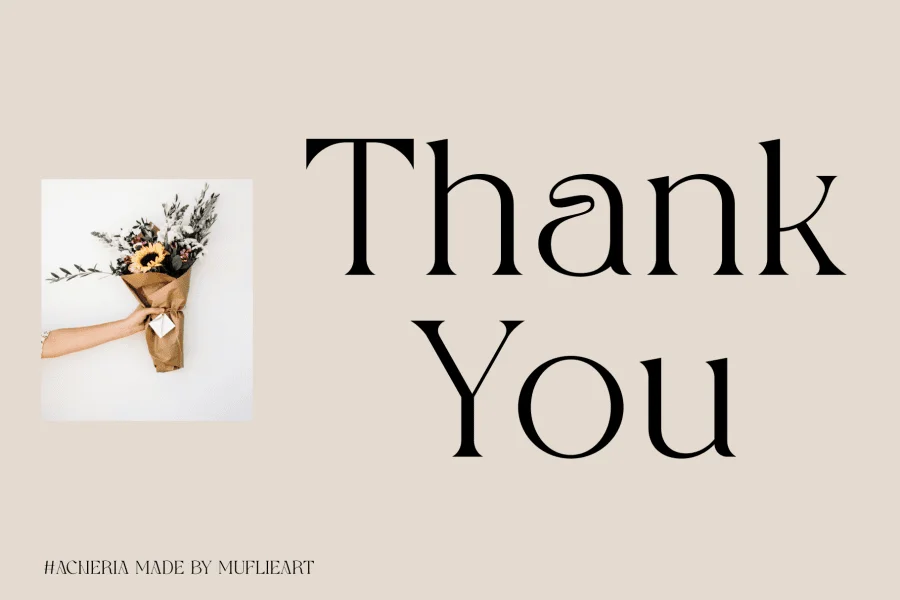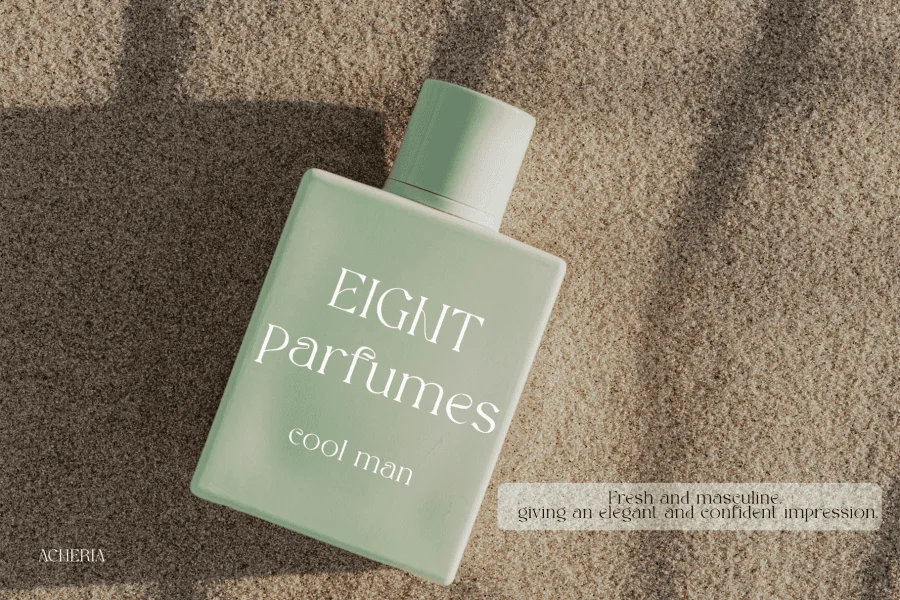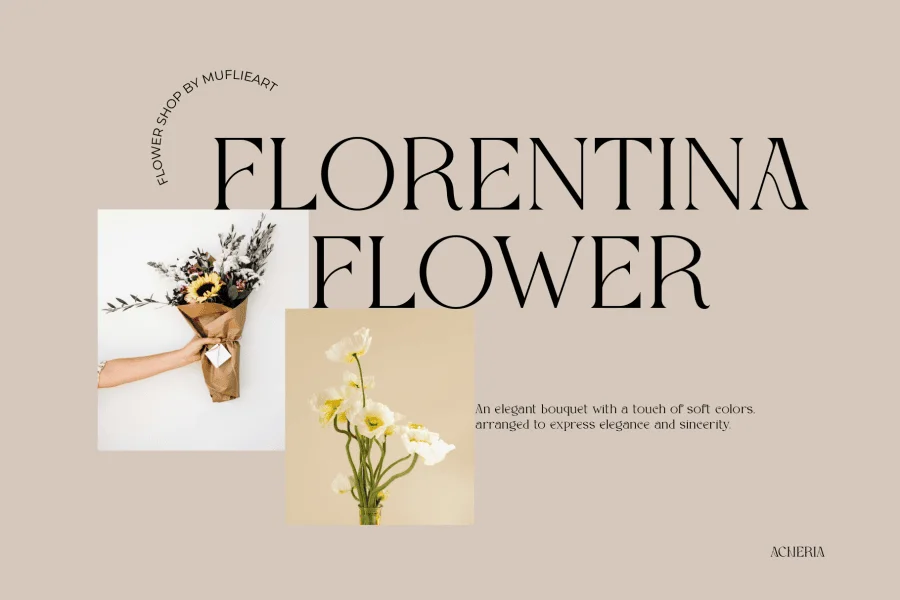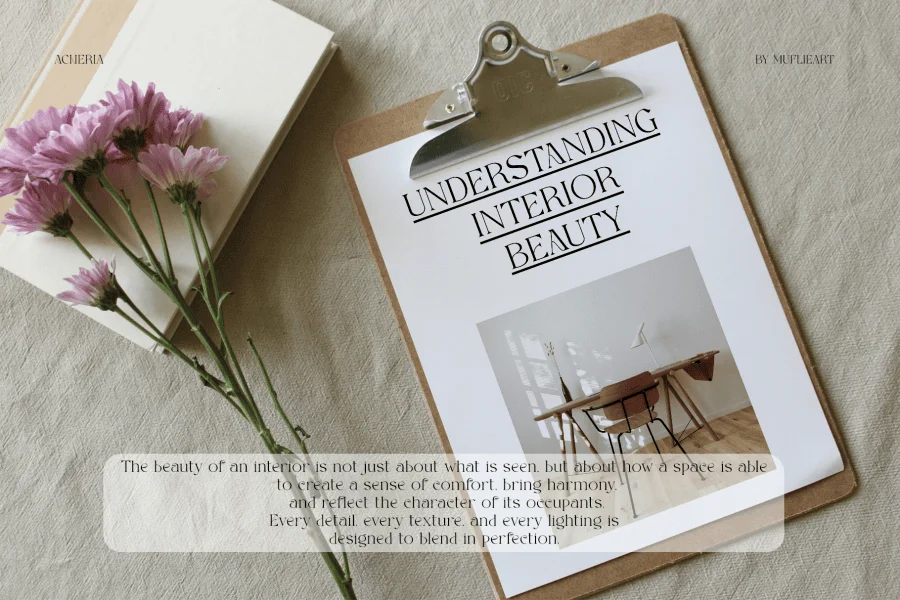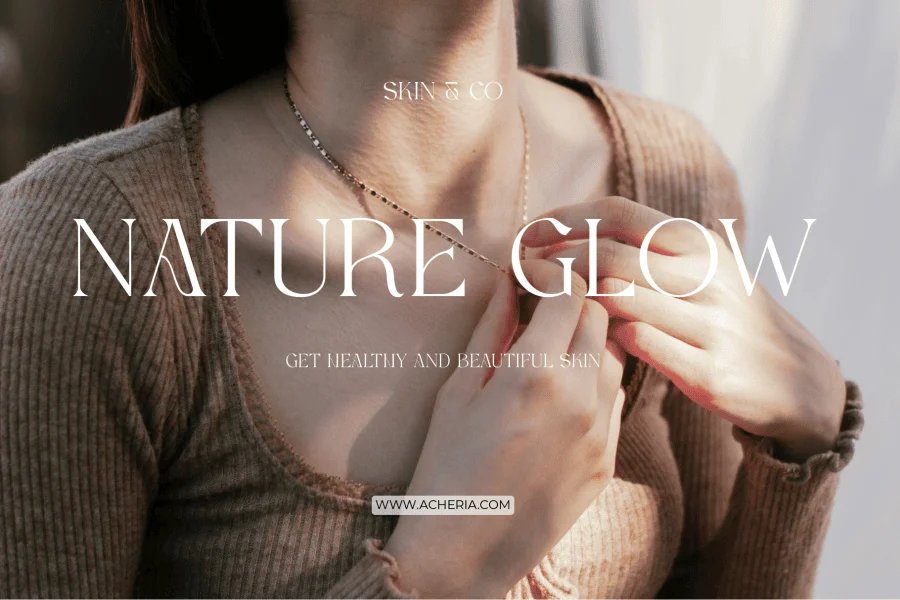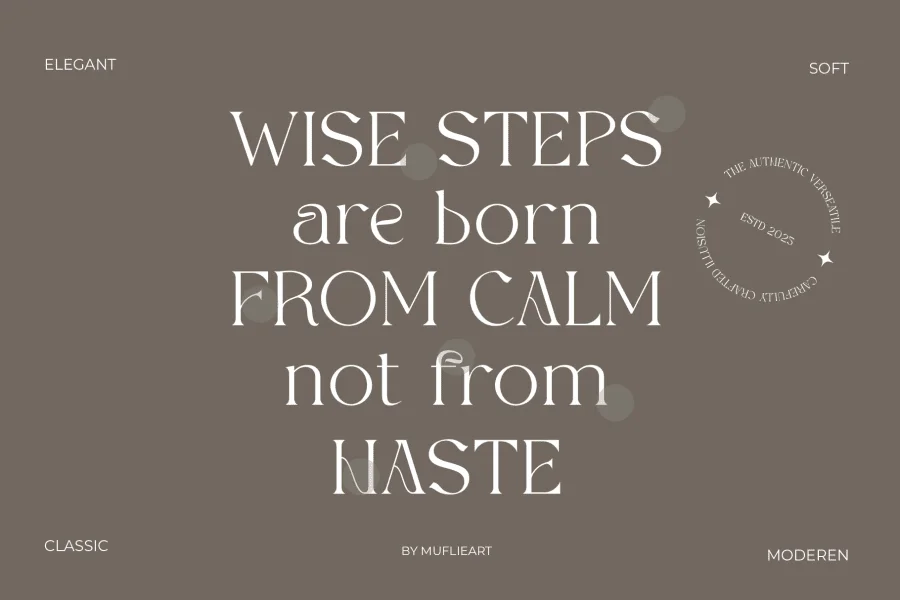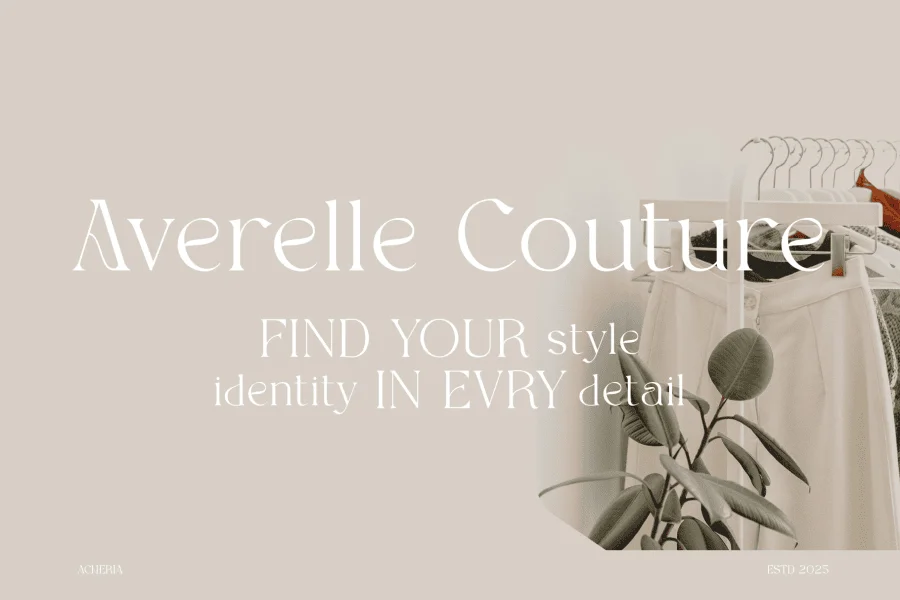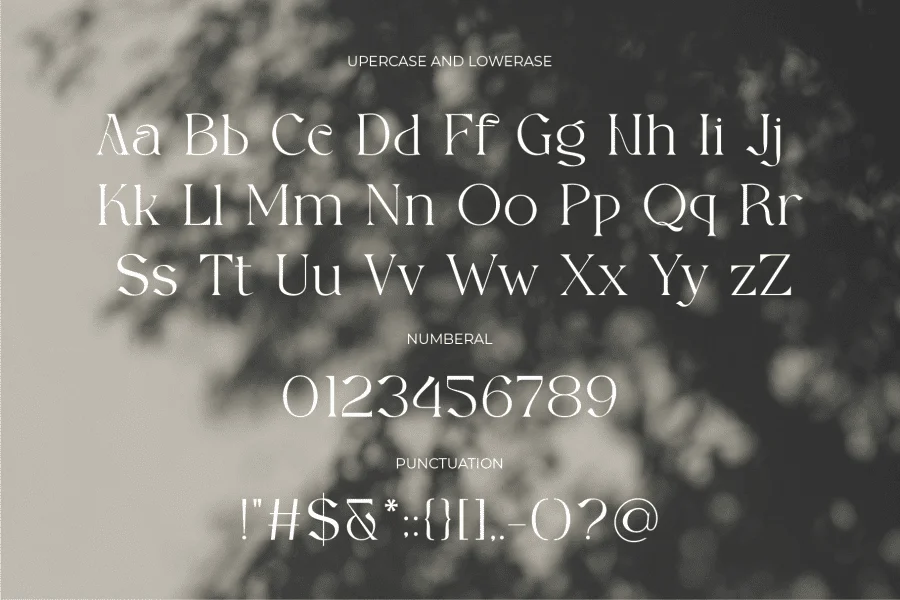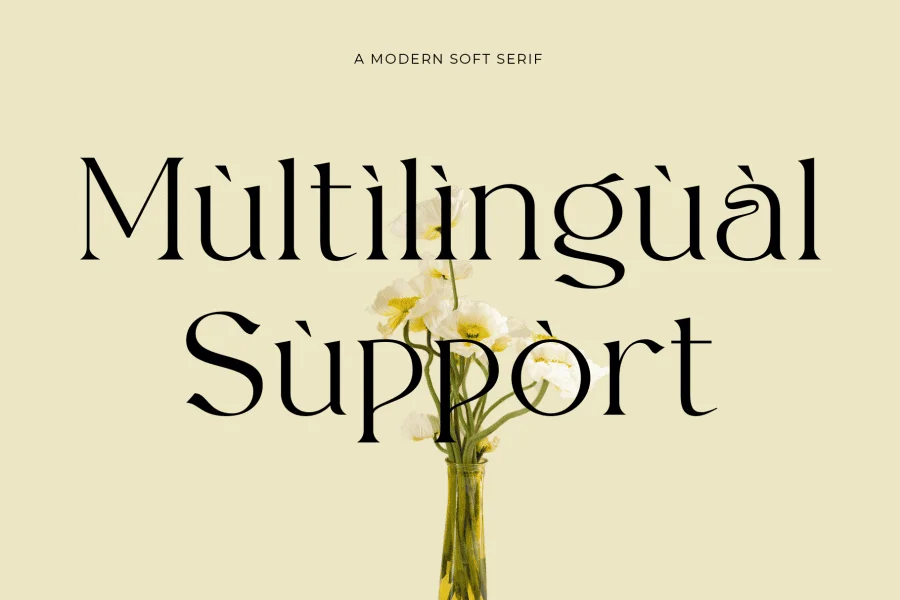
Acheria is a medium-contrast serif display typeface with an elegant, airy posture. Characterized by its delicate, elongated stems and sweeping, curved terminals, the typeface balances sharp structural lines with soft, organic flourishes. The letterforms feature distinct open-loop details and subtle, sharp wedge serifs that anchor the stroke paths, creating a rhythmic and sophisticated visual texture. Its medium-contrast construction pairs robust vertical downstrokes with thinner horizontal connections, resulting in a refined and graceful aesthetic.
This typeface is perfectly suited for high-end editorial layouts, luxury cosmetics branding, and minimalist packaging design. Its delicate details and graceful proportions lend themselves to prominent display applications such as fashion mastheads, lifestyle magazine headers, and sophisticated product labels. Acheria brings a sense of calm, modern elegance to any design project requiring a touch of quiet luxury and artistic flair.